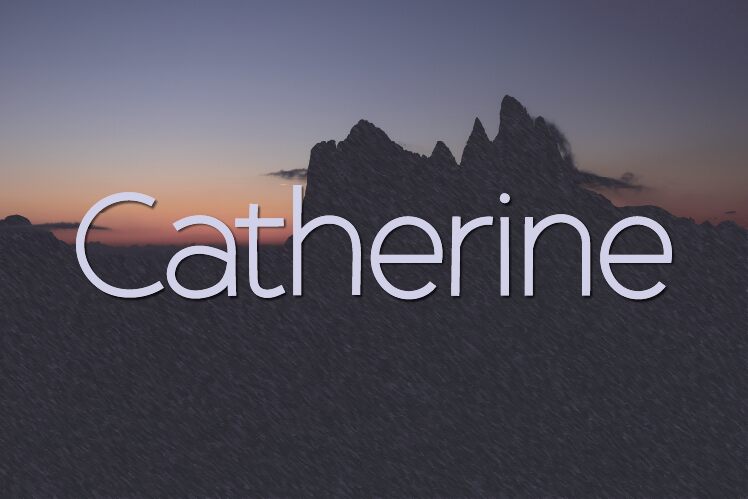
Catherine
Catherine font, crafted by Hanna Bie, is a light sans serif font that radiates elegance with its minimalist and clean design. Infused with modern geometric influences, this typeface offers a contemporary take on classic type styles. It’s the perfect choice for projects requiring a sleek and stylish text appearance.
With its chic yet understated look, Catherine is suitable for branding, logos, packaging design, fashion magazines, blog headers, book titles, website designs, advertisements posters and flyers. A free versatile choice for all elegant uses!